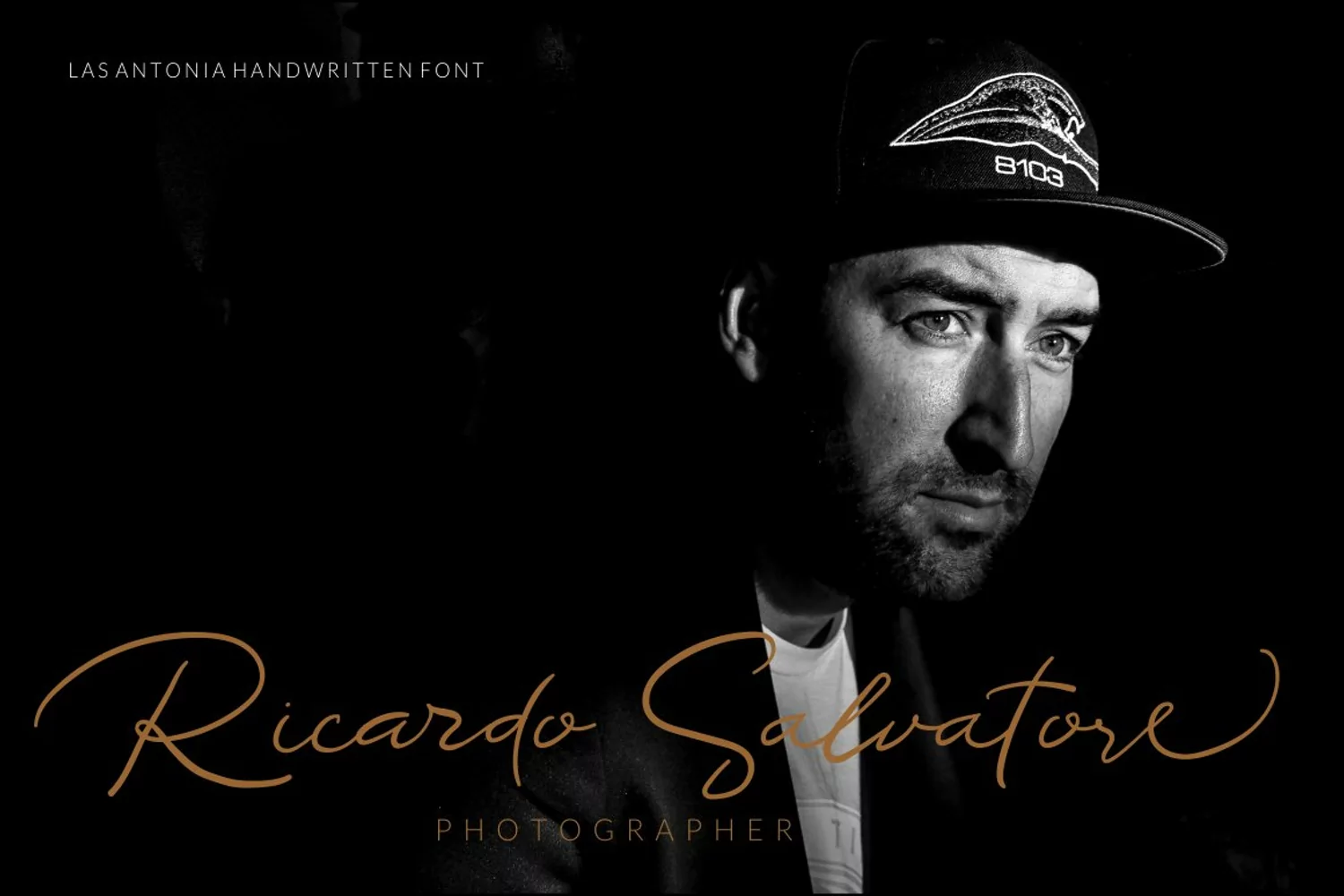
Las Antonio is a modern and a smooth casual signature stylish handwritten font.
Las Antonio is PUA encoded which means you can access all of the glyphs and swashes with ease! It also features a wealth of special feature including alternate characters (OpenType feature) and multilingual support, this font also suitable to be combined with san-serif to get an extraordinary result for your design projects.
Ligatures
Swash